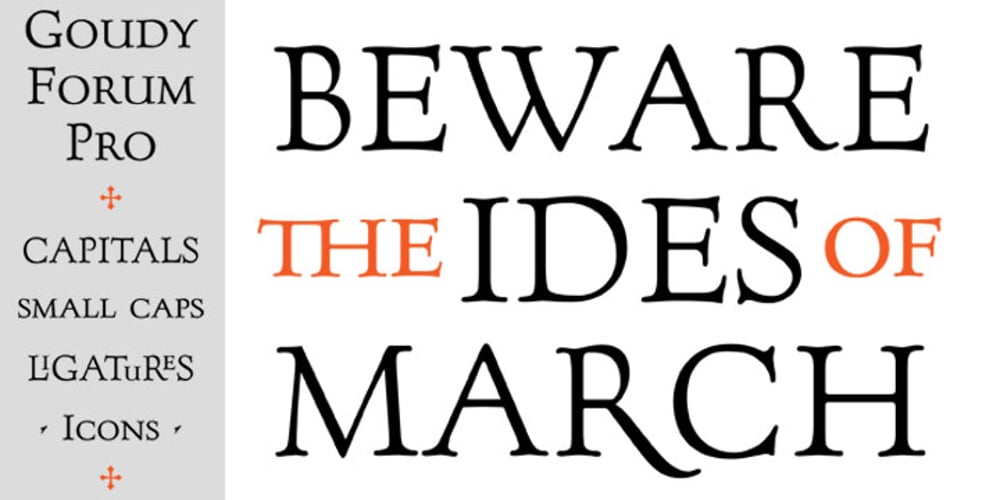
Goudy Font Family was designed by Tom Rickner, Steve Matteson, Frederic W. Goudy and published by Ascender. Goudy contains 3 styles and family package options. Goudy Forum is a revival and dramatic expansion by Tom Rickner, type designer at Ascender Corporation, of Frederic W. Goudy’s 20th typeface design, “Forum Title”. The Pro font began twenty years ago while Tom Rickner was a student at the Rochester Institute of Technology (RIT). Tom printed a type specimen using the Forum Title foundry hot metal types. Then in 1993 Tom began to digitize the font from that specimen while working as an independent type designer. Fifteen years passed before Tom dusted off the digital data and began working in earnest on font with a full Latin 1 character set. Steve Matteson, type director at Ascender, encouraged Tom to take this font further still, and soon the glyph repertoire and feature set blossomed to a robust Pro font with a myriad of advanced typographic OpenType features.